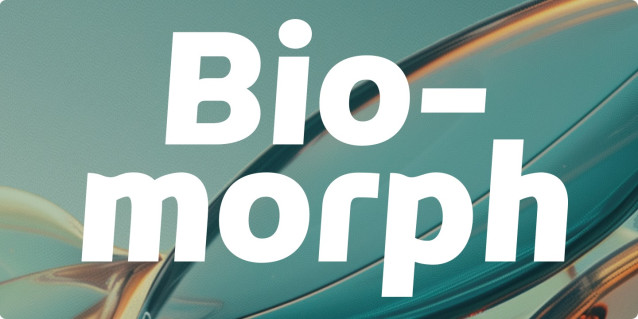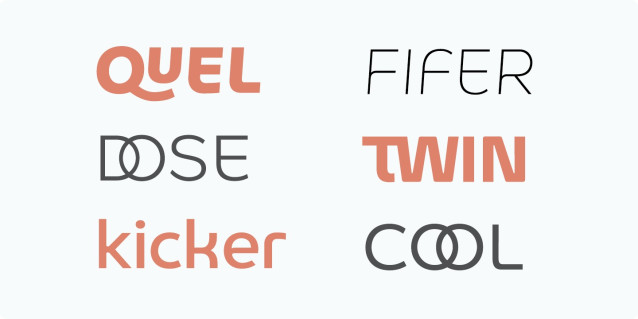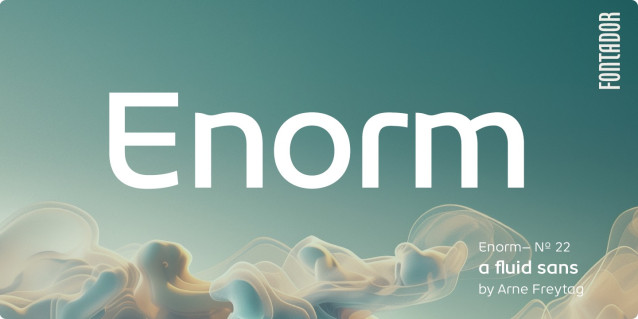
Enorm Font Family
Enorm Font Family is a modern, futuristically conceived neo-grotesque typeface that combines clarity and timelessness with current and emerging technologies. It is designed to serve as a typographic foundation for distinctive brand communication.
Its large x-height enhances readability at smaller sizes and gives the typeface an open, generous appearance on both print and screen. Extensive OpenType features—such as ligatures, contextual alternates, and stylistic sets—are integrated across all styles. With broad Latin language support, Enorm offers high versatility for diverse typographic applications.
Designed as a contemporary geometric typeface, it is particularly well-suited for text, logotypes, branding, editorial design, and corporate identities. Enorm is a related variant of Object.